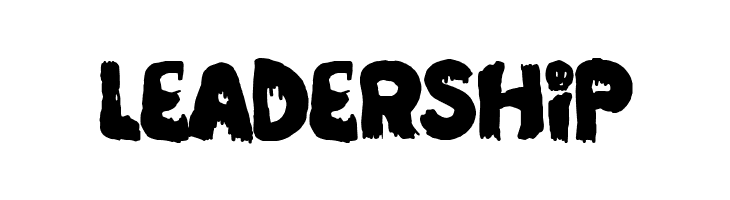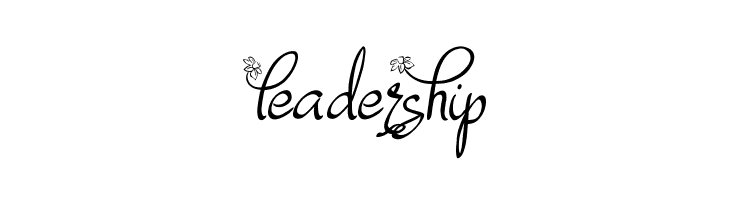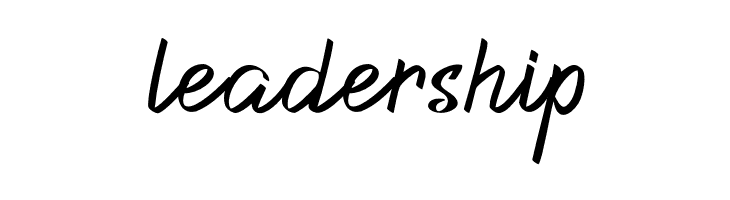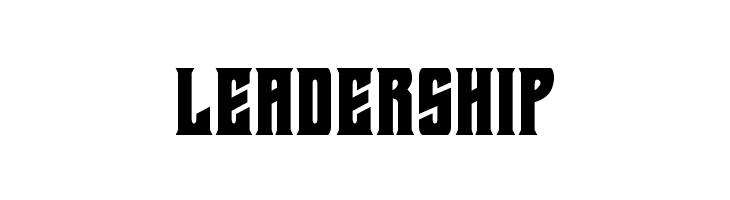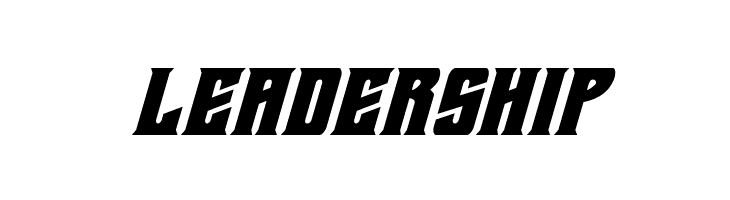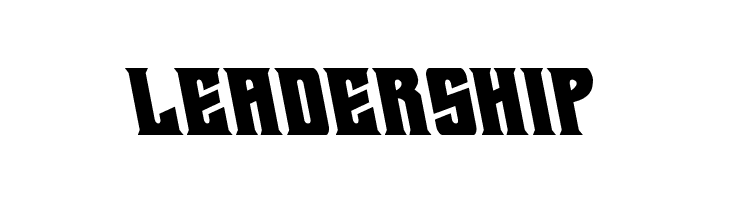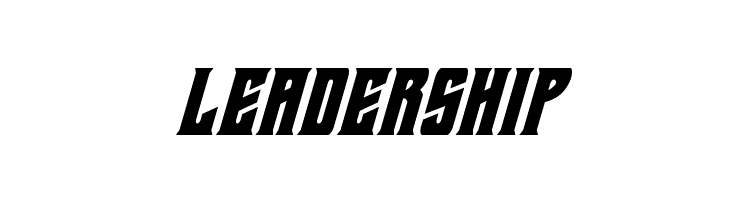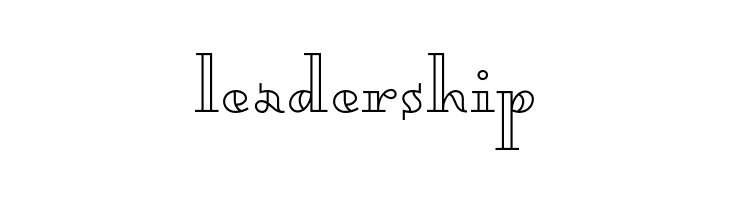
A whimsical and decorative script font with elegant loops and swirls.
A decorative script font with elegant loops and swirls, perfect for creative projects.
A bold, angular font with a futuristic, graffiti-inspired style.
A bold, distressed font with a rugged, vintage appearance.
A bold, textured font with a vintage, distressed style.
A bold, textured font with a vintage, rugged style.
A refined, elegant script font with flowing, cursive strokes.
A sophisticated script font with elegant, flowing cursive letters.
A graceful script font with flowing, cursive characters and elegant loops.
An elegant script font with flowing swashes and intricate details.
A bold, modern font with clean lines and geometric structure.
A modern, geometric font with thin, even strokes and a minimalist design.
A modern, geometric sans-serif font with clean lines and uniform stroke widths.
An artistic and elegant font with geometric elements and elongated letterforms.
A bold, condensed font with a modern, geometric style.
A bold, condensed, and italicized font with a dynamic and modern style.
A bold, italic font with sharp, angular edges and a dynamic style.
A bold, geometric font with a modern and industrial aesthetic.
A bold, condensed font with a modern, geometric style.
A condensed, italicized font with a modern and dynamic style.
A pixelated, retro-style font with a blocky, geometric appearance.
A bold, medieval-inspired font with sharp serifs and angular design.
A bold, medieval-inspired font with sharp serifs and a gothic influence.
A bold, italicized font with a calligraphic and dynamic style.
A dynamic and elegant italic font with bold, flowing letterforms.
A bold, brush-style font with dynamic and expressive strokes.
A bold, brush-style font with dynamic, hand-painted strokes.
A bold, splatter-effect font with a dynamic and edgy style.
A bold, splattered font with a grunge-like, artistic style.
A decorative Blackletter font with intricate, medieval-inspired design.
A bold, high-contrast font with elongated, narrow letterforms.
A bold, distressed stencil font with a rugged, military-inspired aesthetic.
A bold, distressed stencil font with a vintage, industrial feel.
An ornate and decorative font with a vintage, Gothic style.